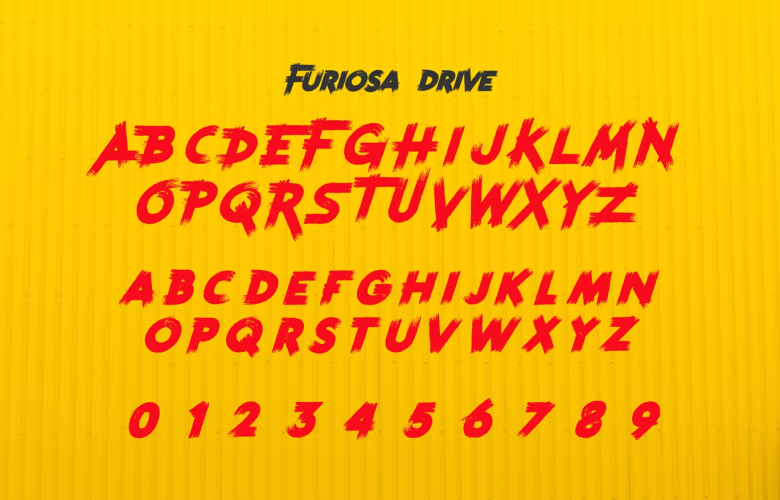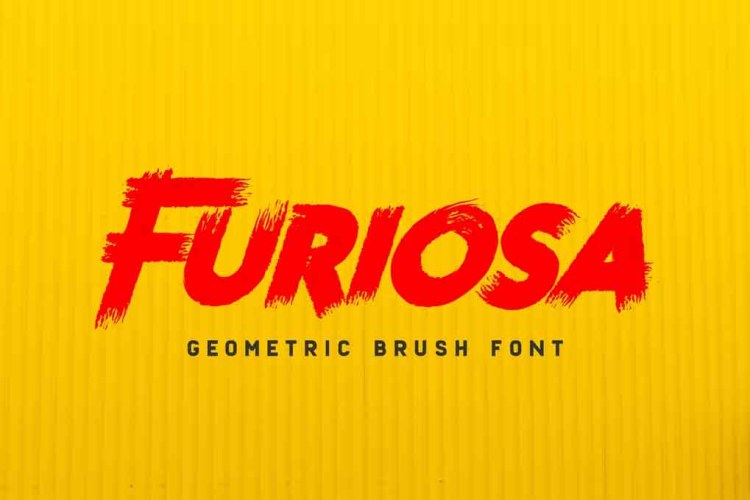
Furiosa Font
Hey, typophile. Imagine spending your days in the apocalypse. You need to write that “Get off my lawn”-sign to protect your compound from riff raff, thieves and/or an occasional zombie or two. And you remember the good old days – when you were setting type with a nice geometric sans-serif.
You pick up your paintbrush and you write that sign. Maybe it’ll look like Furiosa?
Furiosa Font is a Script And Handwritten font that brings a professional and versatile look to your projects. Hey, typophile. Imagine spending your days in the apocalypse.